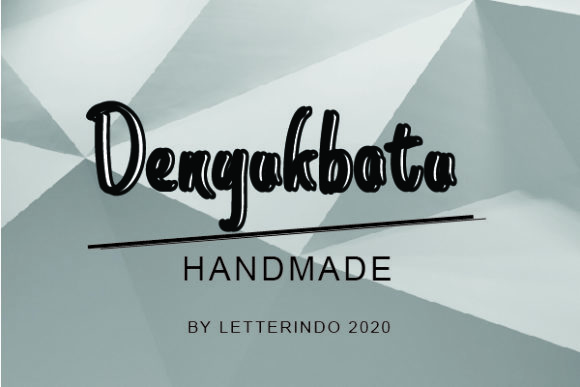
**Captivating the Senses with Denyukbatu: The Perfect Font for Food Packaging**
In the realm of food packaging, presentation is everything. It's the first impression that entices customers to reach out and embrace the culinary delights within. And with Denyukbatu, you have the key to unlocking an extraordinary sensory experience.
Denyukbatu, the enchanting brainchild of johndesign540, is a mesmerizing handwritten font that exudes a unique blend of charm and sophistication. Its artfully crafted glyphs dance across the page, evoking a sense of playful abandon while maintaining an air of elegance.
Imagine your packaging adorned with Denyukbatu, inviting customers to embark on a culinary adventure with its tantalizing curves and vibrant strokes. Each letter becomes an irresistible morsel, enticing them to savor every bite. The relaxed and playful nature of the font adds a touch of whimsy, creating an atmosphere of lighthearted indulgence.
**A Versatile Canvas for Your Culinary Creations**
Whether you're showcasing artisanal bread, mouthwatering pastries, or gourmet chocolates, Denyukbatu adapts effortlessly to your vision. Its versatile nature allows you to craft packaging that reflects the essence of your brand, from rustic and earthy to modern and minimalist.
The font's delicate strokes create a subtle yet captivating texture that elevates your packaging to a work of edible art. Each stroke whispers a tale of culinary passion, inviting customers to indulge in the flavors that await them.
**Emotional Connections and Cravings**
Denyukbatu is not merely a font; it's an emotional bridge that connects your products with the hearts and minds of your customers. Its playful yet elegant style evokes a sense of nostalgia and warmth, reminding them of cherished home-cooked meals and joyful family gatherings.
By using Denyukbatu, you're creating a packaging experience that goes beyond the visual. It stirs emotions, ignites cravings, and creates an irresistible allure that will leave customers longing for more.
**Unleash Your Culinary Imagination**
With Denyukbatu, unleash your culinary imagination and design packaging that captivates every sense. Let your creativity flow as you explore endless possibilities, from bold and eye-catching designs to subtle and sophisticated masterpieces.
Denyukbatu is more than just a font; it's a gateway to culinary storytelling. Embrace its playful charm and create packaging that will make your products irresistible to food lovers everywhere.